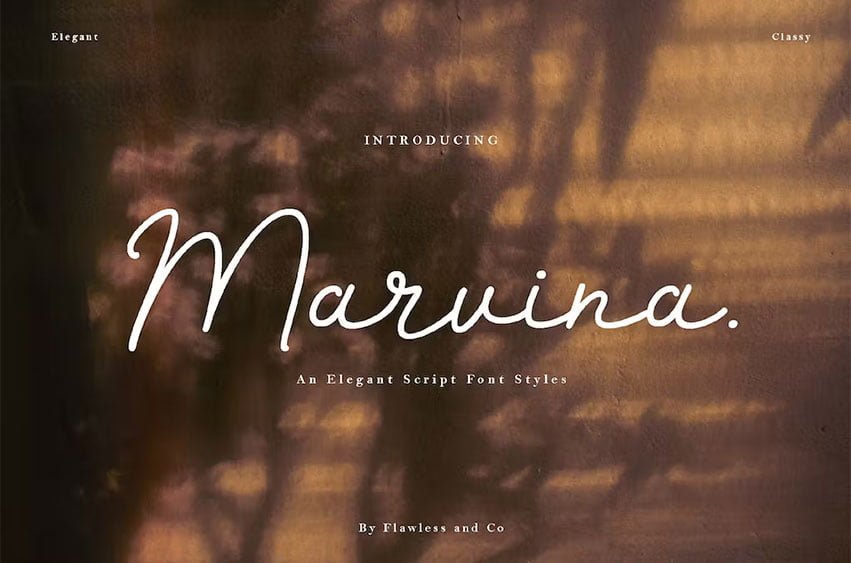
introducing our new “Marvina” Modern Font with Elegant Style is perfect for branding, logos, invitation, master heads, and more.
Marvina Font Preview